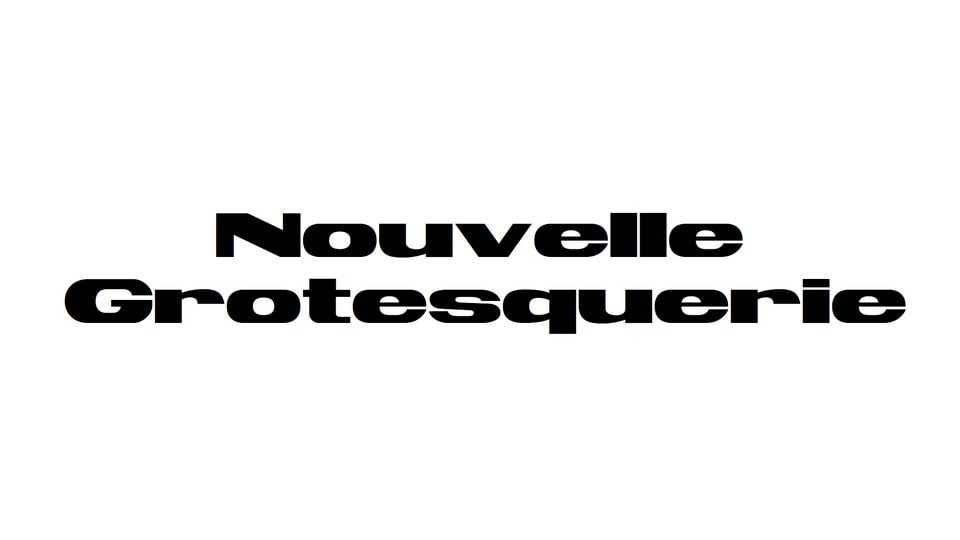
Download Nouvelle Grotesquerie font, a bold and and expansive sans serif typeface based on the wood typeface designed by Georges Morel. The font delivers a bold and impactful display font with wide proportions that demand attention.